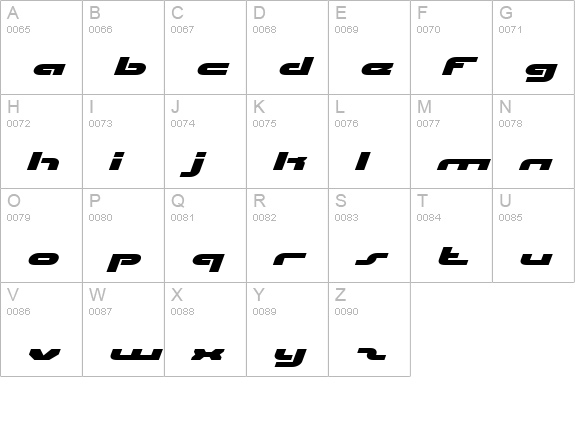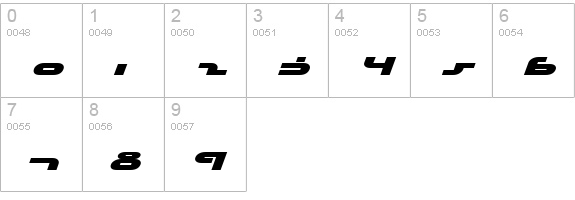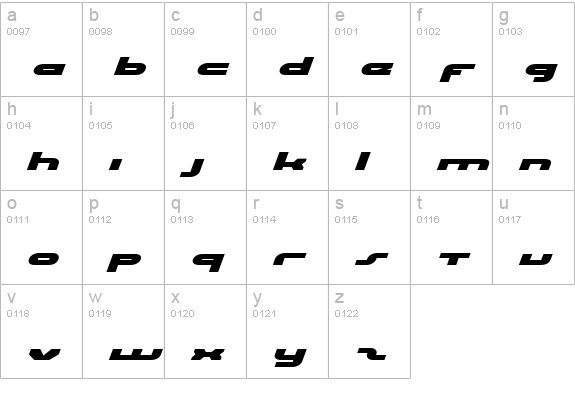
uni-sol expanded italic Font Details
uni-sol expanded italic is a distinctive, extended-width, italic variant in the uni typeface family \xE2\x80\x94 well suited to design and typography projects.
Uni-Sol Expanded Italic font is a sleek and modern typeface that exudes elegance and sophistication. Its elongated and italicized design adds a touch of flair to any project, making it perfect for a wide range of applications from branding to editorial design. The Uni-Sol Expanded Italic font is versatile and eye-catching, making it a great choice for both headlines and body text. What's even better is that Uni-Sol Expanded Italic font is available for free download at FontsMarket.com. This means you can easily access this stunning font and incorporate it into your projects without any cost. Don't miss out on this opportunity to elevate your designs with the beautiful Uni-Sol Expanded Italic font!